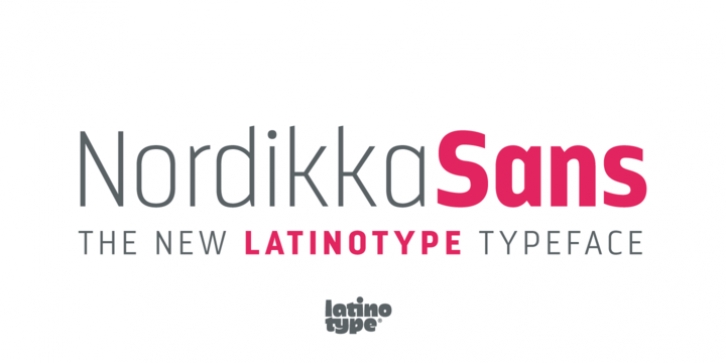
Luciano Vergara
Latinotype
Nordikka
is a simple and pure sans serif typeface with 10 styles, the proportions are condensed and the x high is tall, special for headlines and titles: it’s a clear option for a clear design.